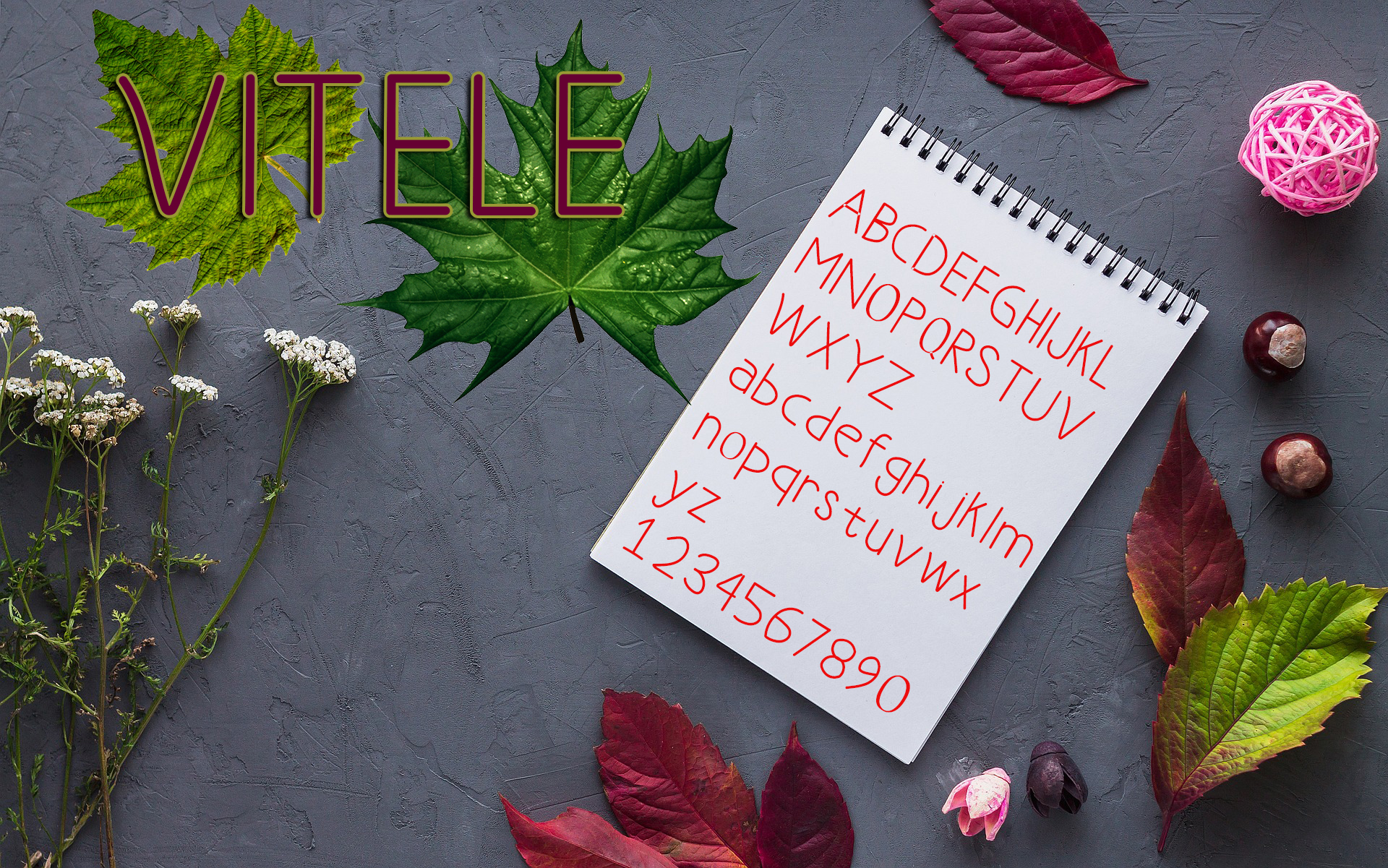
Vitele Font
About Vitele Font
Vitele is a work font crafted in a clean sans serif style. This font looks lovely as a body text, but can also be a high impact headline.